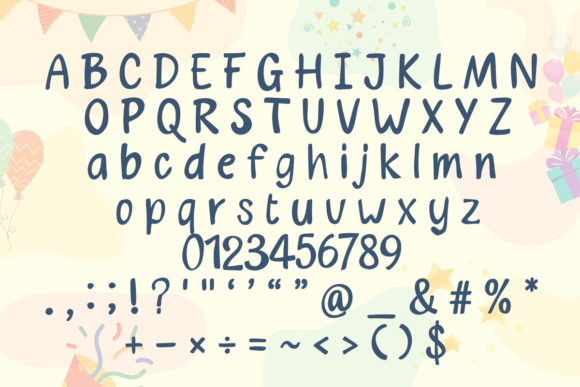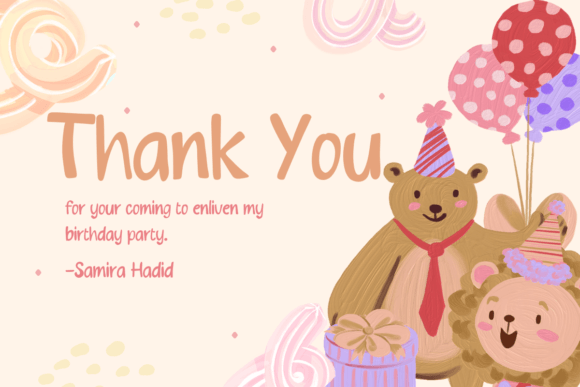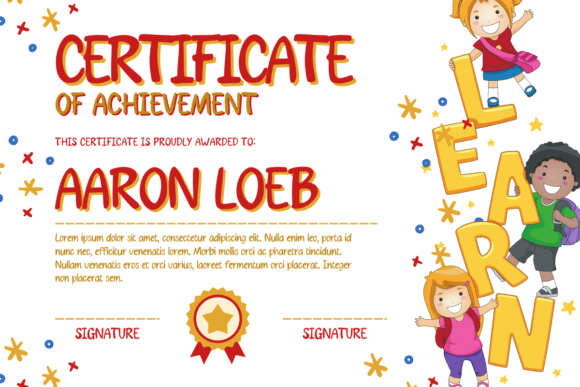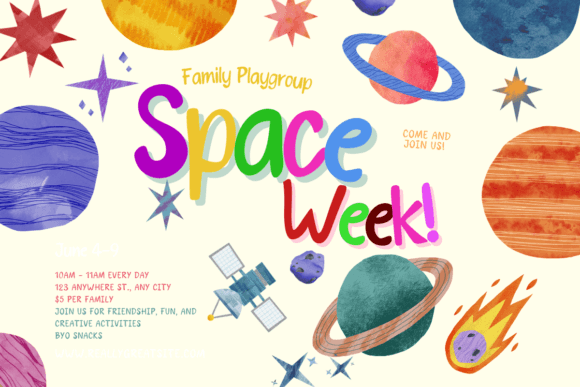
Introducing Accurate Font: The Perfect Handwritten Companion for Designers and Crafters
Are you a designer, crafter, or simply a creative individual looking for a unique and personal touch in your digital or handmade projects? Look no further than Accurate Font, a charming handwritten font designed to bring a sense of warmth and personality to your work. In this article, we’ll explore the features and benefits of Accurate Font, and how it can be used to elevate your note-taking, diary writing, greeting card making, and more.
What is Accurate Font?
Accurate Font is a carefully crafted handwritten font that mimics the natural flow and imperfections of human handwriting. Its unique character set and varied letterforms make it an ideal choice for adding a personal touch to your digital or printed projects. Whether you’re a student looking to add some flair to your notes, a writer seeking to add character to your diary entries, or a crafter creating handmade greeting cards, Accurate Font is the perfect companion.
Key Features of Accurate Font
• Handwritten style: Accurate Font boasts a genuine handwritten look, complete with subtle variations in letterforms, sizes, and spacing.
• Unique character set: The font includes a wide range of characters, punctuation marks, and special symbols to ensure that your text looks natural and engaging.
• Easy to read: Despite its handwritten nature, Accurate Font remains highly legible, making it perfect for everyday use.
• Versatile: Accurate Font can be used for a variety of purposes, from note-taking and diary writing to greeting card making and more.
Uses for Accurate Font
So, how can you use Accurate Font in your creative projects? Here are a few ideas to get you started:
• Note-taking: Add a personal touch to your notes and study materials with Accurate Font. Its handwritten style makes it easy to distinguish between different sections and ideas.
• Diary writing: Make your diary entries feel more intimate and special with Accurate Font. Its unique character set and varied letterforms will add a touch of personality to your writing.
• Greeting card making: Create one-of-a-kind greeting cards for special occasions using Accurate Font. Its handwritten style and natural flow make it perfect for conveying heartfelt messages.
• Journaling: Use Accurate Font to add a creative touch to your journal entries. Its ease of reading and unique character set make it ideal for recording your thoughts, ideas, and inspirations.
Tips for Using Accurate Font
To get the most out of Accurate Font, here are a few tips to keep in mind:
• Experiment with font sizes: Accurate Font looks great in a variety of font sizes, from small and delicate to large and bold.
• Mix and match with other fonts: Combine Accurate Font with other fonts to create visually interesting and dynamic text arrangements.
• Use it for titles and headings: Accurate Font’s unique character set and handwritten style make it perfect for titles, headings, and other display text.
Accurate Font is a versatile and charming handwritten font that’s perfect for designers, crafters, and creative individuals looking to add a personal touch to their projects. With its unique character set, varied letterforms, and natural flow, Accurate Font is ideal for note-taking, diary writing, greeting card making, and more. So why not give it a try and see how Accurate Font can elevate your creative projects?
Whether you’re a seasoned designer or a crafty hobbyist, Accurate Font is sure to become a trusted companion in your creative journey. So go ahead, get creative, and make your mark with Accurate Font!